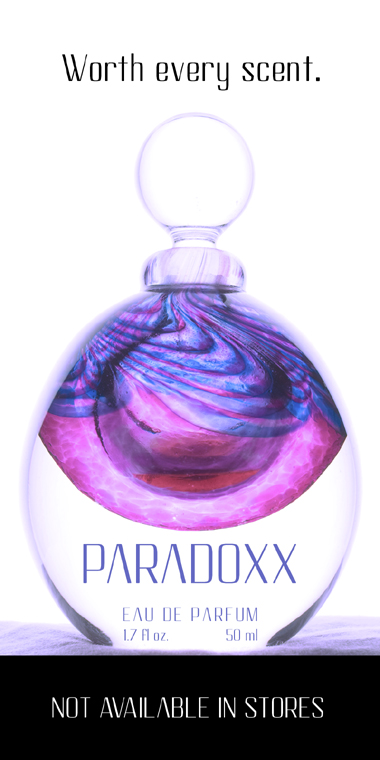
Beautiful letters delineated by slender strokes and graceful hyperbolas. The polygonal nature of the curves only revealed at larger sizes. (Tiny ink traps at Z,3.) Aesthetics of elegance cast in letters. 10/10
Stunningly elegant.
It’s so nice! Letters are so smooth!
@arseniiv: I wasn't really planning on adding more just yet, but I'll ponder requests. This was released mainly to contrast fontstructing methodologies with William's fs_Rondeux.
These three features are some of the strongest I can remember – all gathered in one place and time. Good tidings for FontStructions still to come! Well done, Gene! 10/10
"Witness an exquisite and controlled variation of stroke rarely seen on FontStruct. This is a beautiful FontStruction which rewards close examination, revealing sophisticated details."
Beautiful!
Wow!! This is great! It is the simple, basic ones that deserve some of the most appreciation, because lines such as those are nearly impossible to make on fontstruct (no judgements!!!)
not paradox its like very gentel very simple very good :D
Elegant!
Maybe, I'm a bit too late to comment on this font. This is basic, but very clean, beautiful, stunning, and nearly impossible to make this on Fontstruct, wow!
Just a fantastic font: simple and elegant! Well done!